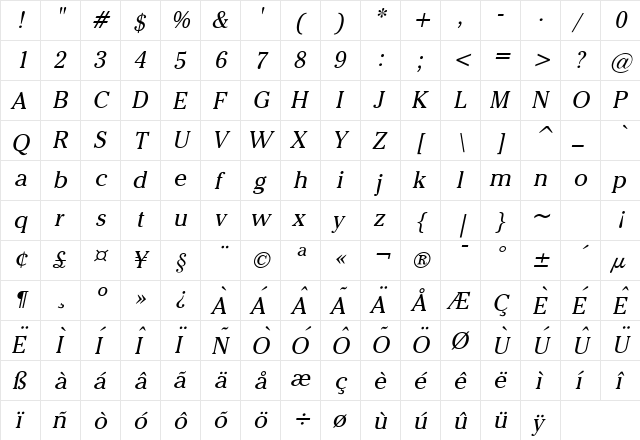
Chelsey Italic Font Preview
Chelsey Italic
Chelsey Italic Font Details
Design Context for Chelsey Typeface
Chelsey takes a measured approach to typography — its balanced proportions and neutral character make it a reliable workhorse for both digital and print work. The dynamic lean of this cut emphasises speed and emphasis in any layout.
Pro Tip: Try Chelsey for annotation and caption copy alongside an upright companion — the contrast in angle creates a dynamic but ordered typographic system.